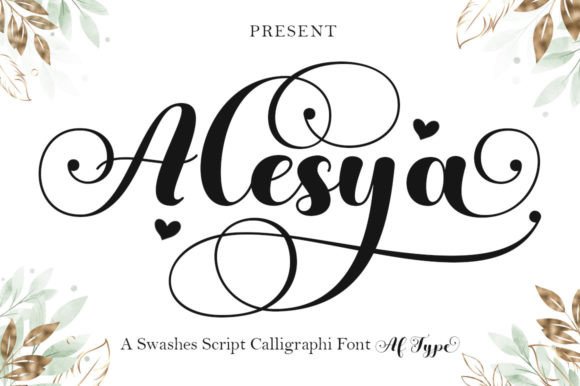
Alesya Font: Elevate Your Designs with a Touch of Romance
In the world of typography, fonts play a crucial role in conveying the tone and aesthetic of a design. For those seeking a stylish and refined font that exudes romance, Alesya Font is an excellent choice. This beautiful font is suitable for a wide range of applications, from greeting cards to headlines, and is sure to add a touch of elegance to your creations.
The Beauty of Alesya Font
Alesya Font is a stunning script font that boasts a high level of sophistication and refinement. Its elegant lines and curves make it perfect for designs that require a touch of romance and whimsy. Whether you’re creating a wedding invitation, a Valentine’s Day card, or a simple yet effective headline, Alesya Font is the ideal choice.
Key Features of Alesya Font
- PUA Coded: Alesya Font is PUA (Private Use Area) coded, which means that you can access all glyphs and swashes easily. This feature makes it simple to use and customize the font to suit your design needs.
- Wide Range of Applications: Alesya Font is versatile and can be used for a wide range of applications, including greeting cards, headlines, posters, and more.
- Romantic Touch: Alesya Font is designed to add a romantic touch to your designs. Its elegant lines and curves make it perfect for creating beautiful and eye-catching designs.
Why Designers and Crafters Love Alesya Font
Alesya Font has become a favorite among designers and crafters due to its unique combination of style, elegance, and versatility. Here are just a few reasons why:
- Ease of Use: Alesya Font is easy to use and customize, making it perfect for designers and crafters of all skill levels.
- High-Quality Design: Alesya Font is designed to the highest standards, ensuring that your designs look professional and polished.
- Unique and Creative: Alesya Font offers a unique and creative way to express yourself through your designs. Its elegant lines and curves make it perfect for creating eye-catching and memorable designs.
Tips for Using Alesya Font
To get the most out of Alesya Font, here are a few tips to keep in mind:
- Pair with Other Fonts: Alesya Font pairs well with other fonts, making it easy to create visually appealing and effective designs.
- Experiment with Sizes and Colors: Don’t be afraid to experiment with different sizes and colors to find the perfect combination for your design.
- Use for Headlines and Titles: Alesya Font is perfect for headlines and titles, making it a great choice for designers looking to create eye-catching and memorable designs.
In conclusion, Alesya Font is a beautiful and versatile font that is perfect for designers and crafters looking to add a touch of romance and elegance to their designs. With its PUA coding, wide range of applications, and romantic touch, Alesya Font is an excellent choice for anyone looking to create stunning and effective designs.